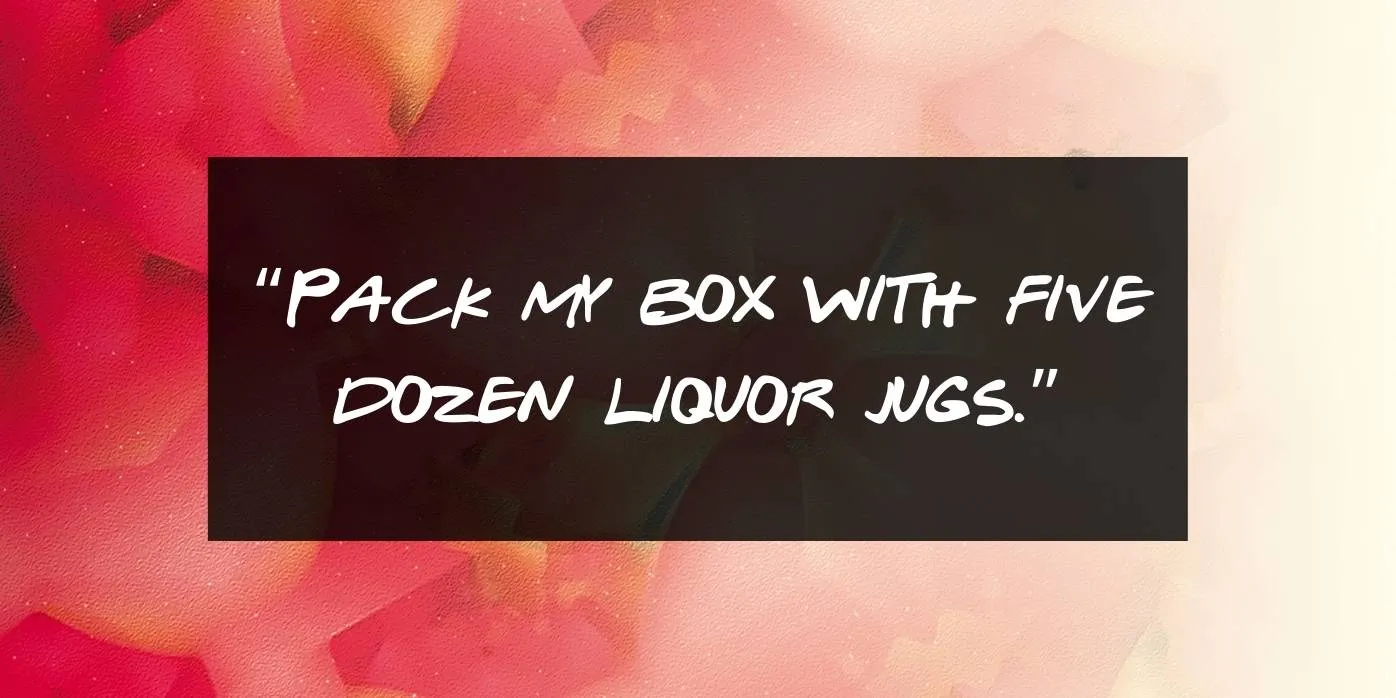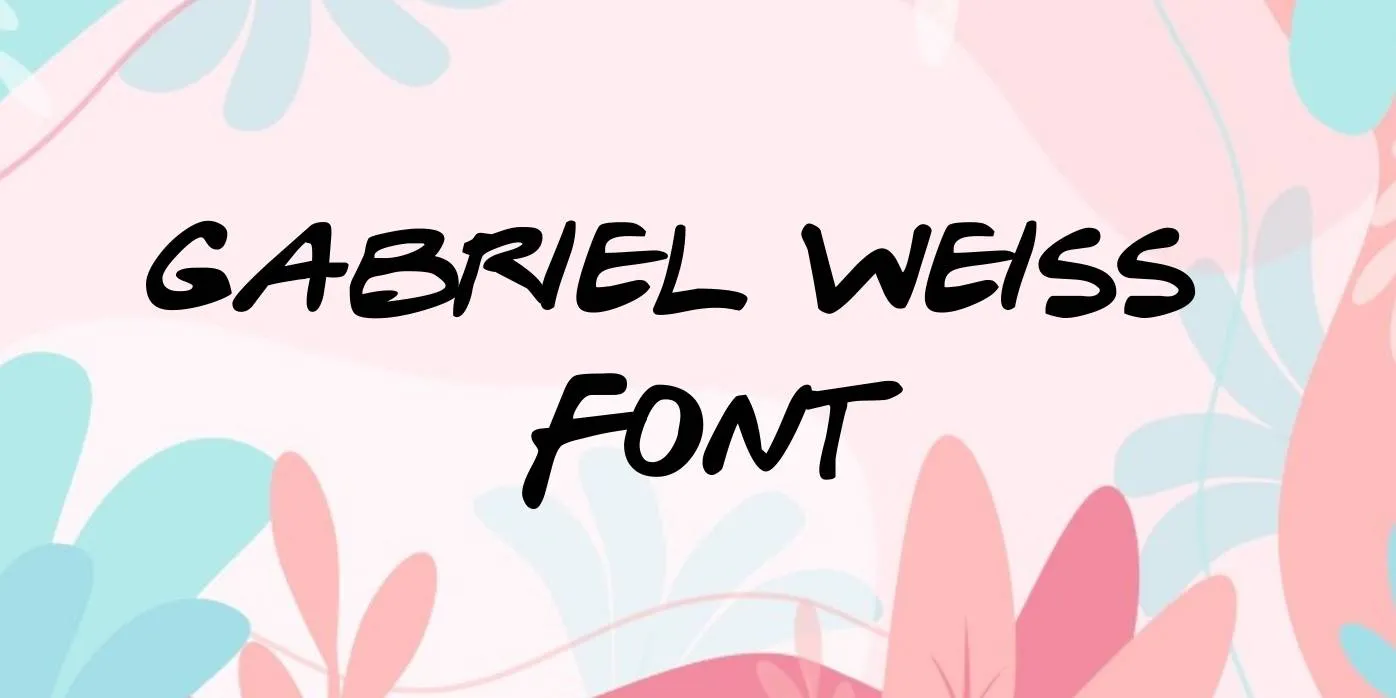
Gabriel Weiss Font
Introducing a new font that is famous by the name Gabriel Weiss Font. This classy typeface belongs to the Brush font family. It was designed by Gabriel Weiss. This staggering font has available in two types of styles regular and italic.
This brush typeface has come with an attractive look that makes it perfect for any display purposes. The designer has taken care of each and every character while designing it. You can use this fine-quality font for various purposes like headlines, posters, titles, quotes, and many other places. It is also best for use in Google docs.
It is best for use in Canva. Its similar chiller font is suitable for various designs. Its generator tool is very classic for graphic designs. Gabriel Weiss Font is a very popular font nowadays because of its unique and stylish look.